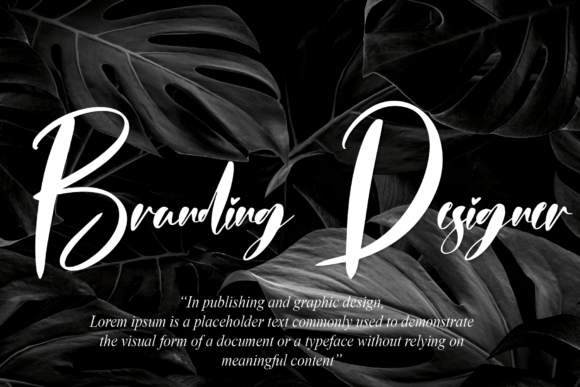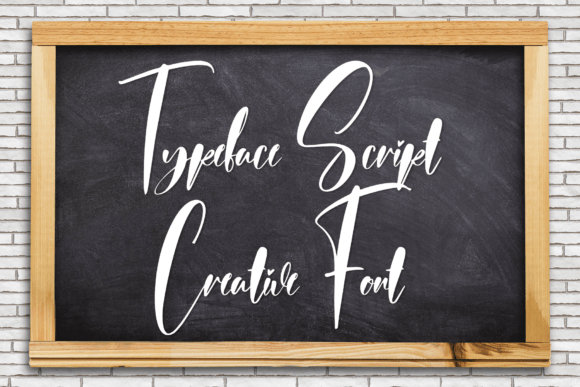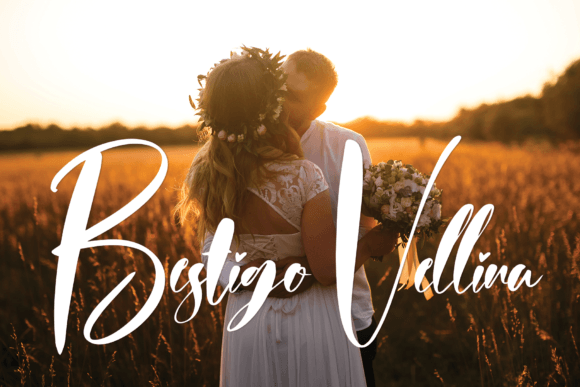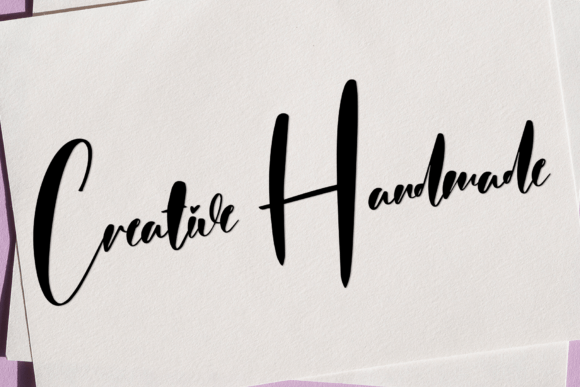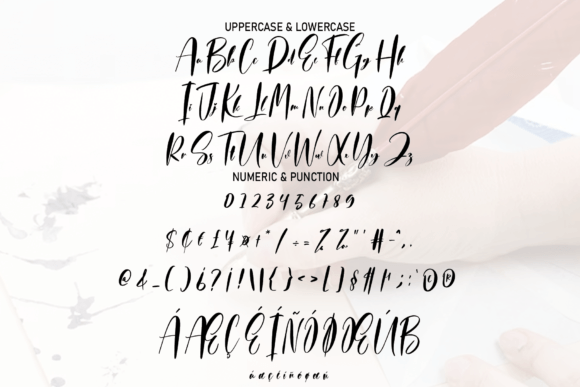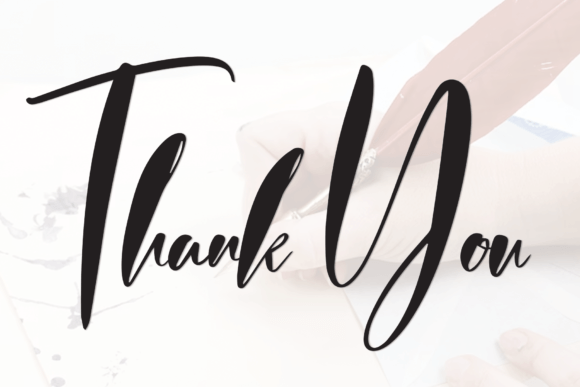
When Words Become Art: The Allure of Calligrapher Font
As I sat at my desk, staring at a blank piece of paper, I felt the familiar urge to create something beautiful. I picked up my pen, and the words began to flow – elegant, flowing, and full of character. It was in that moment that I fell in love with the art of calligraphy, and the font that brings it to life: Calligrapher Font.
Designed to evoke the charm of handwritten script, Calligrapher Font is a versatile tool for designers seeking to add a touch of elegance to their work. Whether it’s a wedding invitation, a thank you card, or a company logo, this font brings a sense of sophistication and refinement to any design. For designers, Calligrapher Font is a valuable asset, offering endless possibilities for creative expression.
Calligrapher Font Key Features
- Size: Supports a wide range of font sizes, from 8pt to 120pt, making it suitable for various design applications.
- Resolution: Designed for high-resolution displays, ensuring crisp and clear text rendering at resolutions up to 300 DPI.
- Unique Characteristics: Features elegant, cursive script with subtle flourishes, ideal for adding a touch of sophistication to wedding invitations, greeting cards, and other formal documents.
- Language Support: Supports a wide range of languages, including Latin, Cyrillic, and Greek alphabets, making it a versatile choice for global design projects.
- Style Variations: Includes multiple style variations, including Regular, Italic, Bold, and Bold Italic, allowing designers to experiment with different looks and feels.
Calligrapher Font Review
Overall, I have mixed feelings about the Calligrapher Font. On one hand, it’s a beautiful and elegant font that’s perfect for creating a sophisticated and luxurious feel in your designs. ✨ The font’s flowing lines and delicate details are reminiscent of traditional calligraphy, making it a great choice for projects that require a touch of elegance.
Here are some of the things that work well about the Calligrapher Font:
- Its versatility: The font works well in a variety of contexts, from invitations and greeting cards to branding and marketing materials.
- Its elegance: The font’s flowing lines and delicate details make it a great choice for projects that require a touch of sophistication.
- Its legibility: Despite its decorative appearance, the font is still highly legible and easy to read.
On the other hand, there are a few limitations to the Calligrapher Font that may be worth considering:
- Its limited expressiveness: While the font is beautiful, it may not be the best choice for projects that require a lot of emphasis or excitement.
- Its lack of customization options: The font is available in a limited number of weights and styles, which may limit its versatility in certain contexts.
- Its potential for misinterpretation: The font’s decorative appearance may lead some users to misinterpret the text or focus on the font itself rather than the message.
- ⚠️ The font can sometimes appear awkward in certain font sizes or resolutions.
Overall, I think the Calligrapher Font is a solid choice for designers who are looking for a beautiful and elegant font. However, it may not be the best choice for projects that require a lot of emphasis or excitement, or for designers who need a high degree of customization options.
The Calligrapher Font is ideal for:
– Custom signage and banners